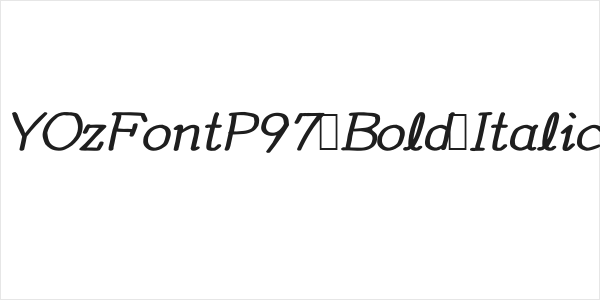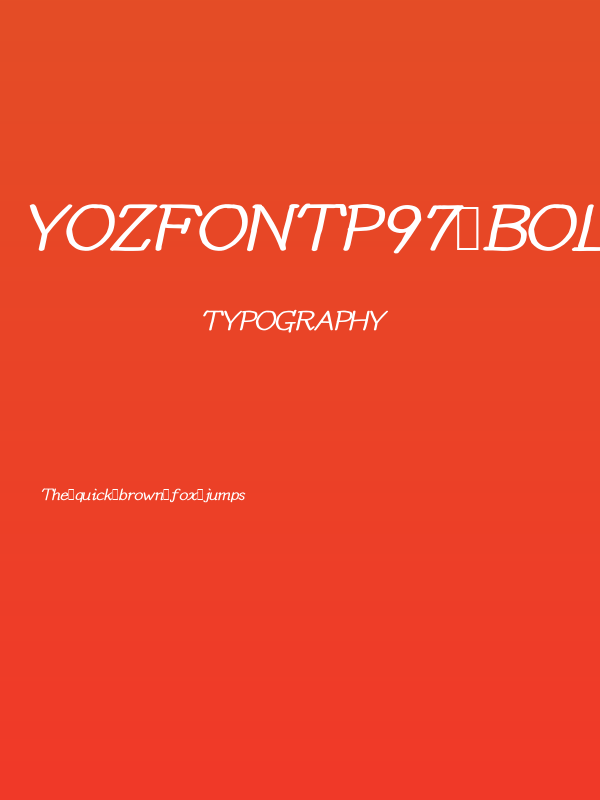
YOzFontP97 Bold Italic Font
YOzFontP97 Bold Italic Description
This font features a bold and italic style, combining a sense of strength with elegance. The uppercase letters are slightly slanted, giving a dynamic and forward-moving appearance. The lowercase letters maintain a consistent slant, enhancing readability while retaining a stylish flair. Numbers are clear and bold, ensuring they stand out in any context. Special characters are well-defined, maintaining the overall aesthetic of the font. The strokes are consistent in weight, providing a uniform look across all characters.
| Proposed Projects | Ideal for branding projects, headlines, and any design requiring a bold and stylish statement. |